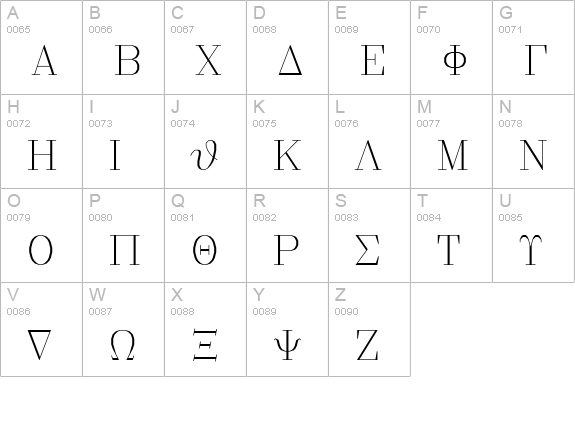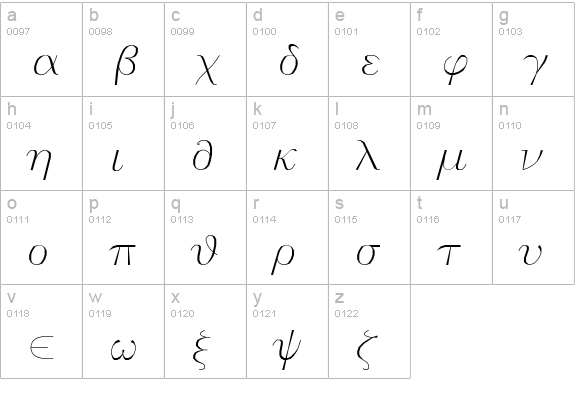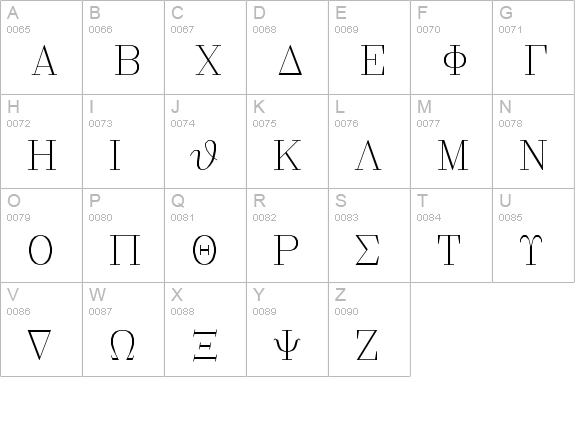
GreekC Font Details
GreekC font is a stunning and elegant typeface that captures the beauty and sophistication of Greek lettering. With its clean lines and classic design, this font is perfect for adding a touch of timeless style to your projects. The GreekC font is not only visually appealing, but it also offers great readability and versatility, making it suitable for a wide range of design applications. Best of all, GreekC font is completely free to download at FontsMarket.com. Whether you're working on a personal project or a professional design, you can easily access this beautiful font without any cost. Don't miss out on the opportunity to enhance your creations with the GreekC font - download it today and enjoy the beauty of Greek lettering in your designs!